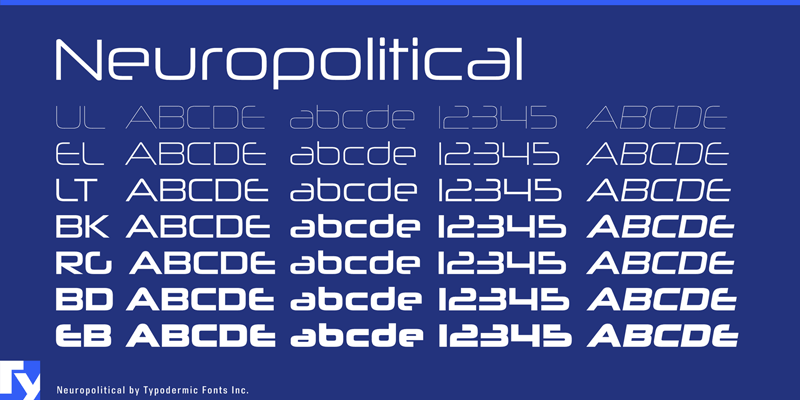
Neuropolitical started as a square capped variation of the http://www.dafont.com/search.php?q=neuropol" target="_blank">Neuropol family. This wide, futuristic typeface comes in 7 weights plus italics. The desktop license for Neuropolitical regular is free. This font includes a license that allows free commercial use: sometimes referred to as a desktop license. This allows you to install the font on a computer and use it to create posters, web graphics, game graphics, t-shirts, videos, signs, logos and more. Read the license agreement for details. If you'd like to embed this font in an app, ebook, on the web or anything that's not covered by the desktop license agreement, visit the link below. You'll find distributors who offer different types of licenses or you can contact me for help. http://typodermicfonts.com/neuropolitical-science/ This free font is part of a larger font family. Check out the rest of the family through the link above. |